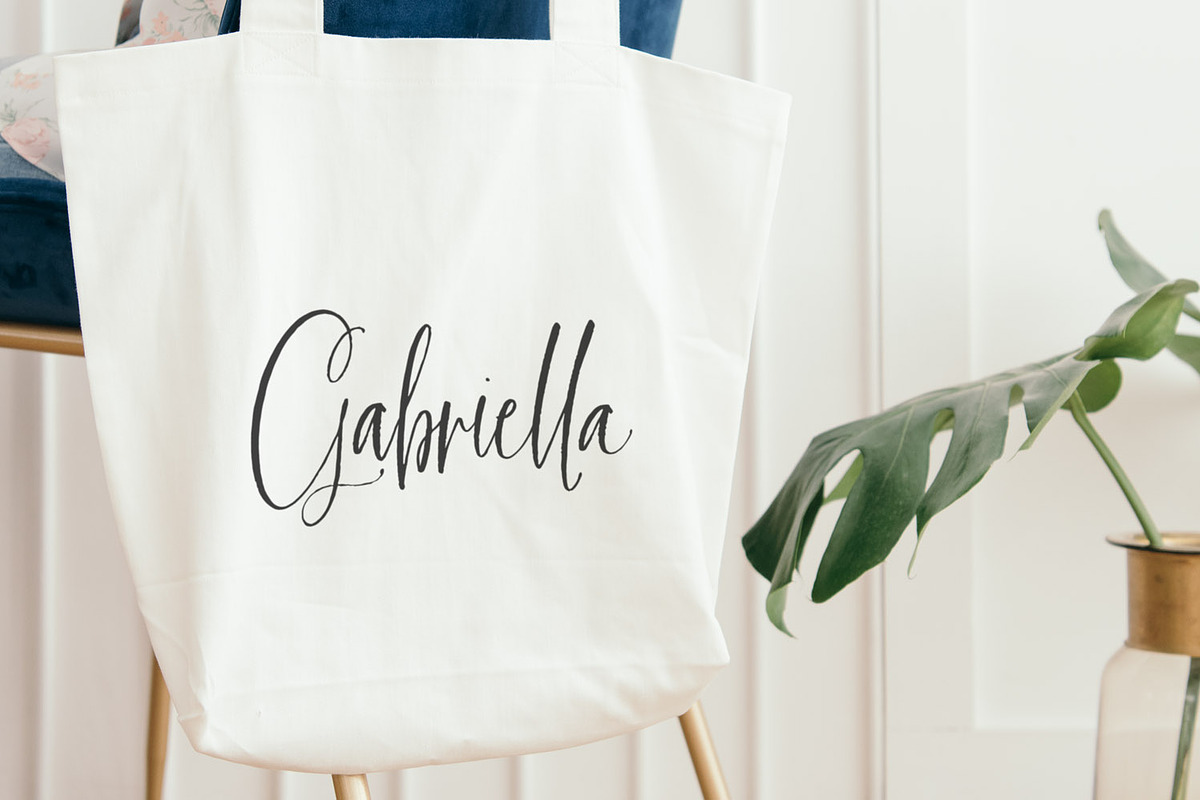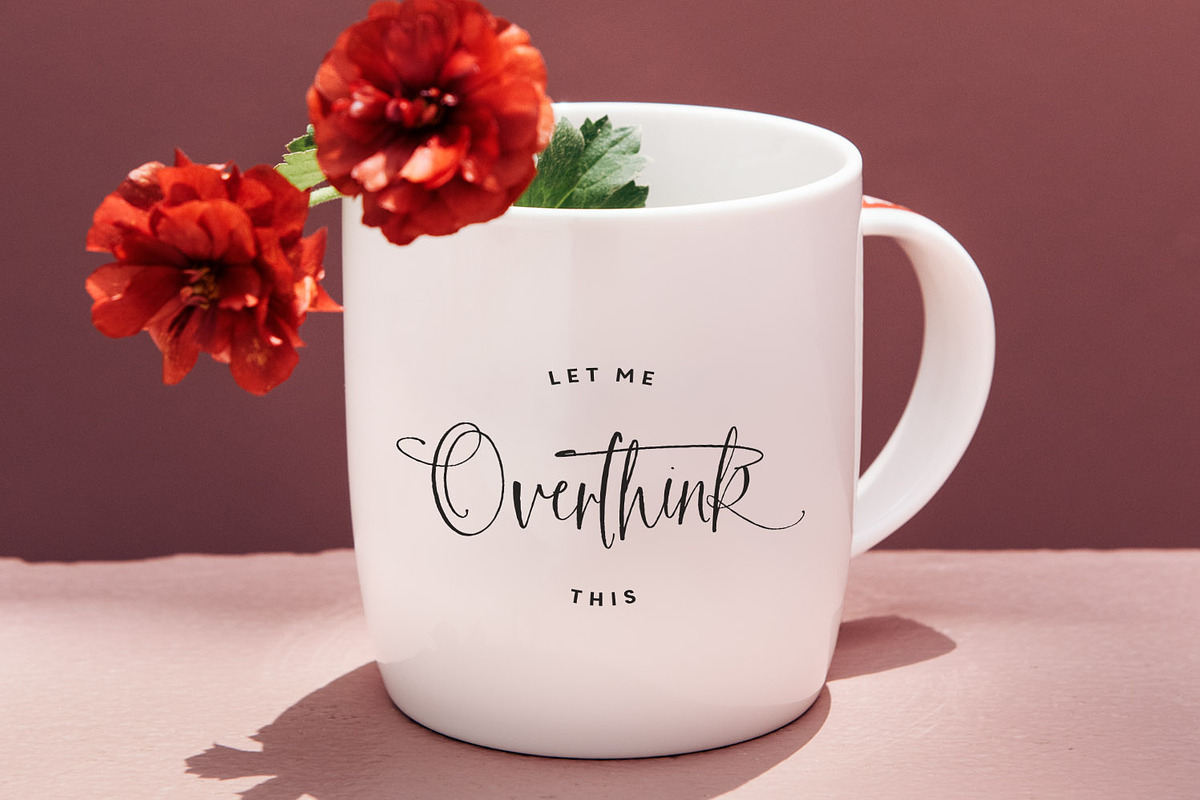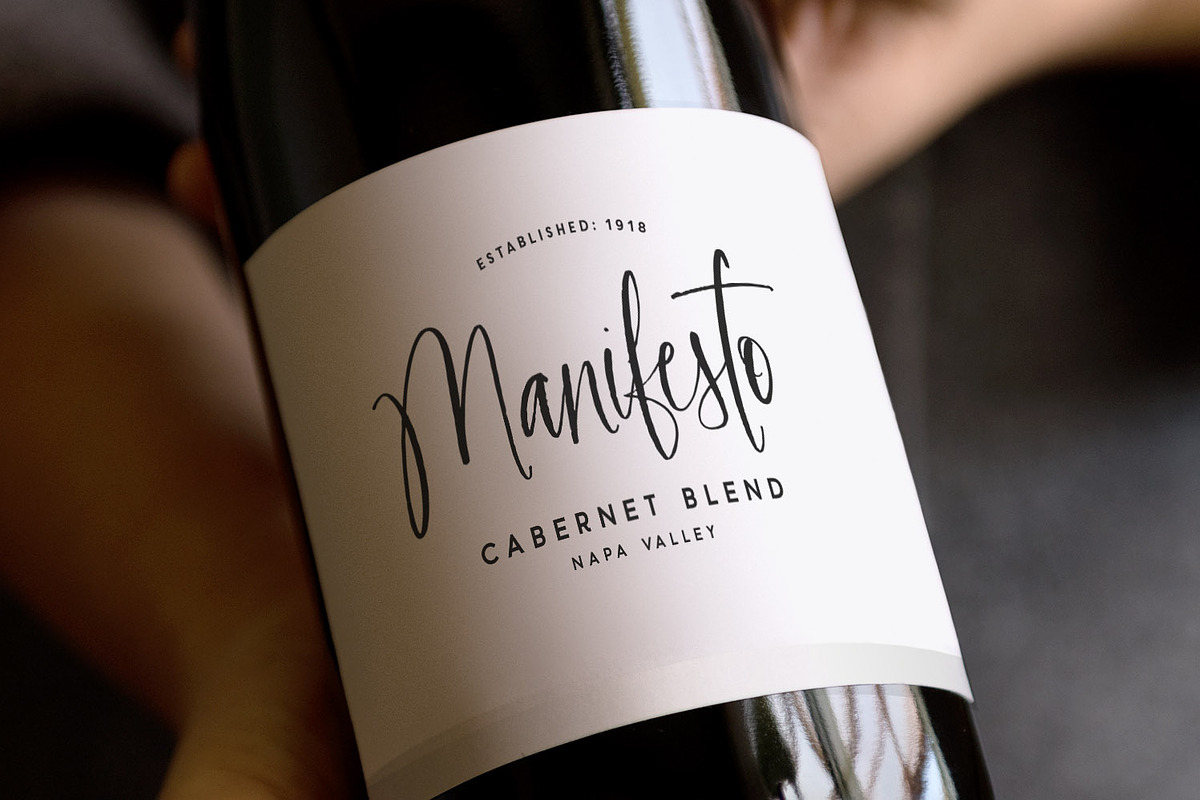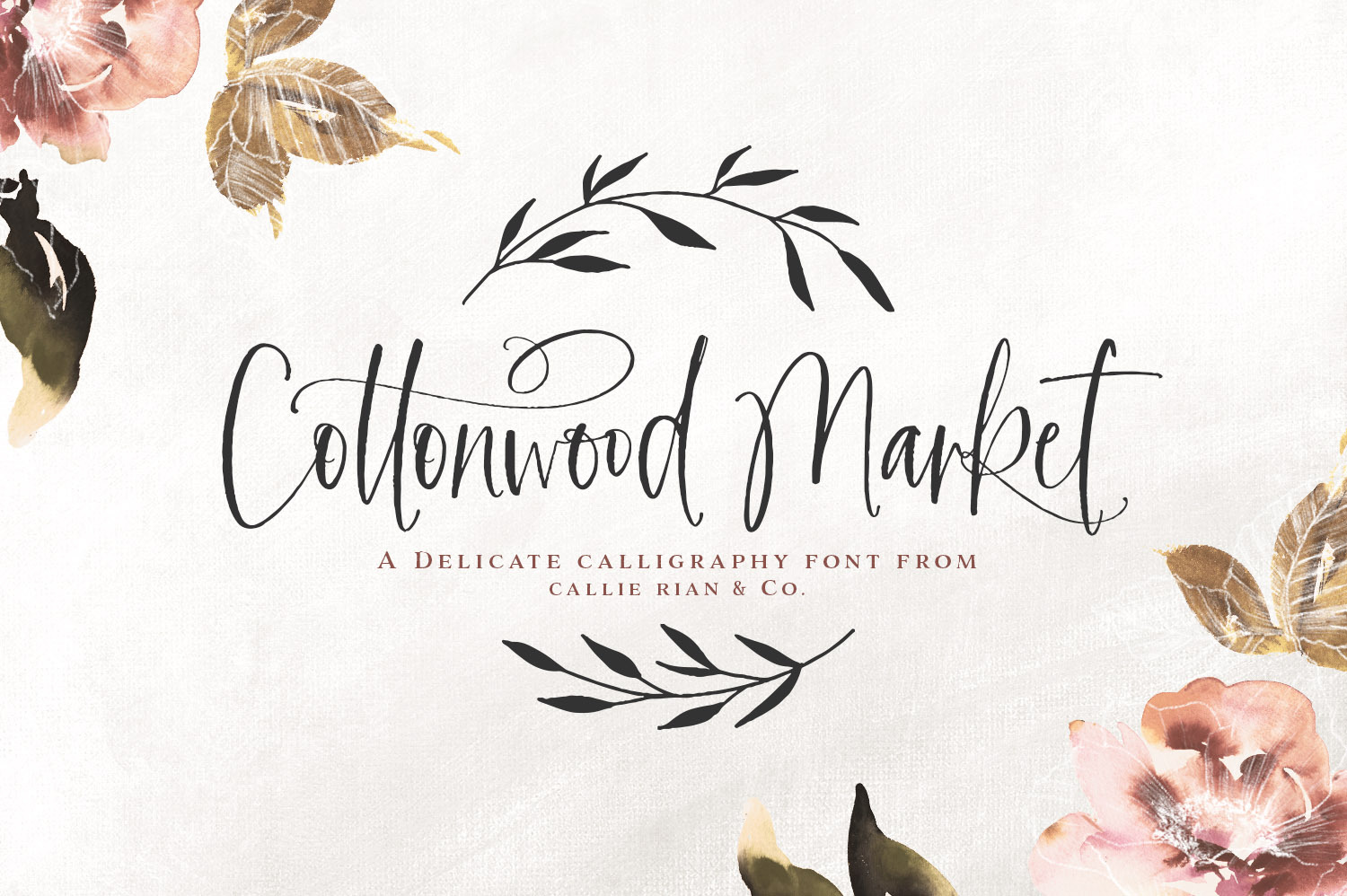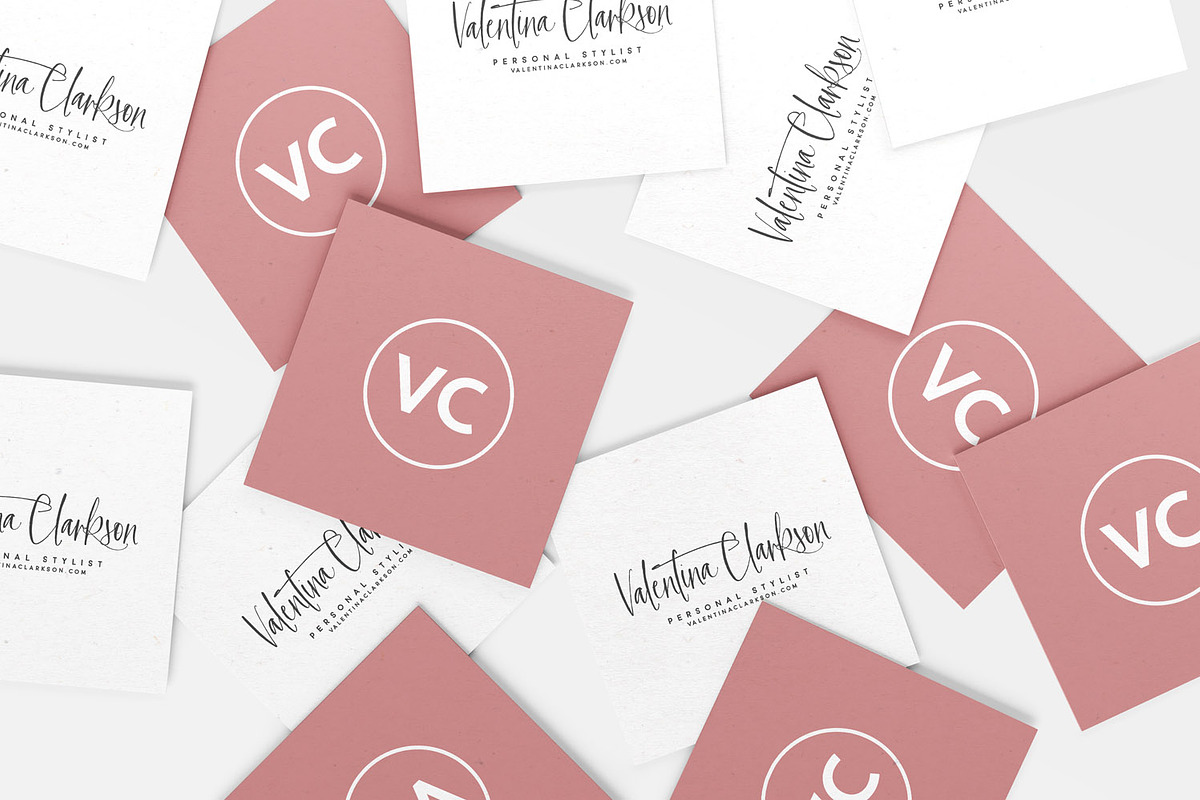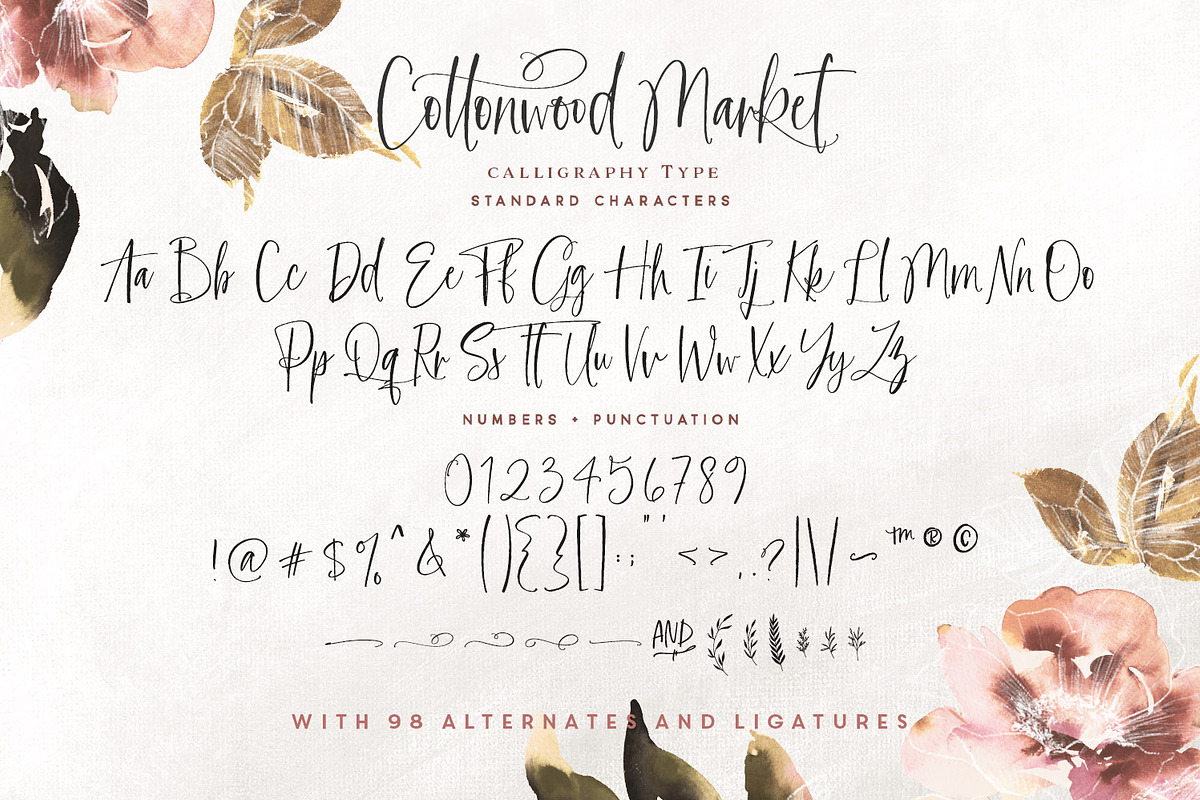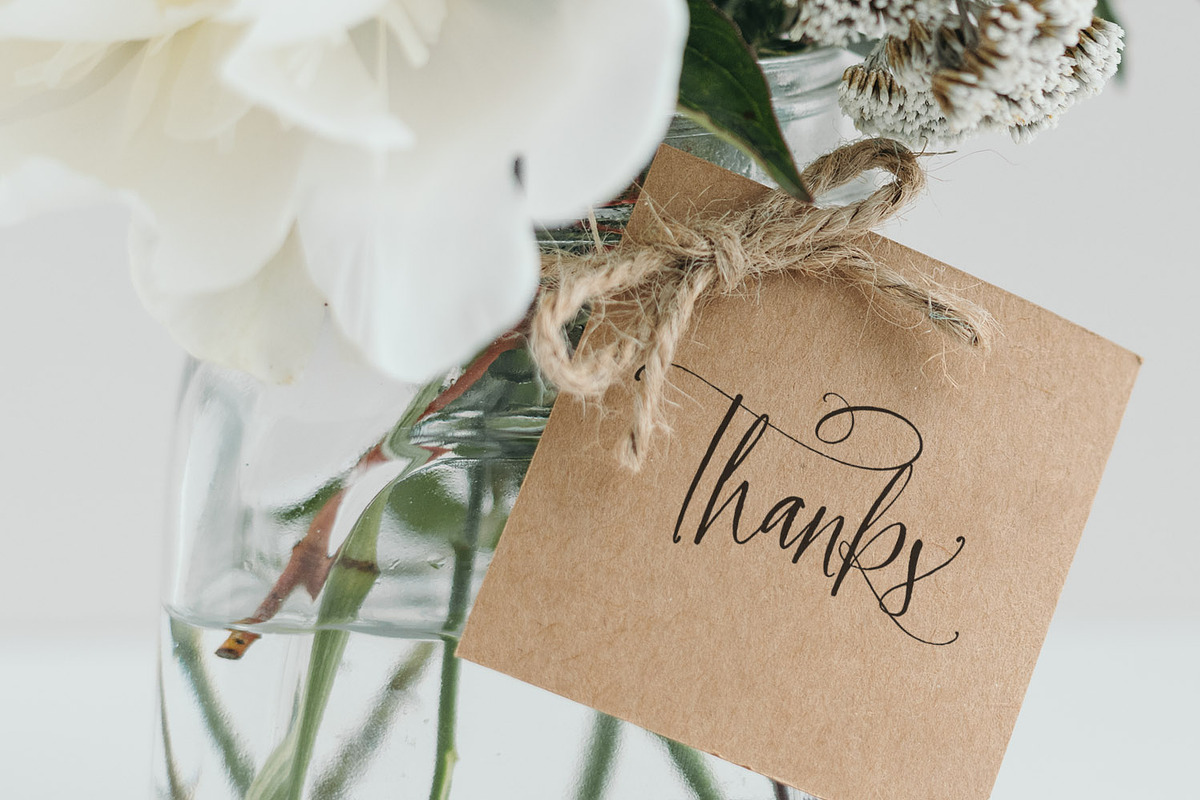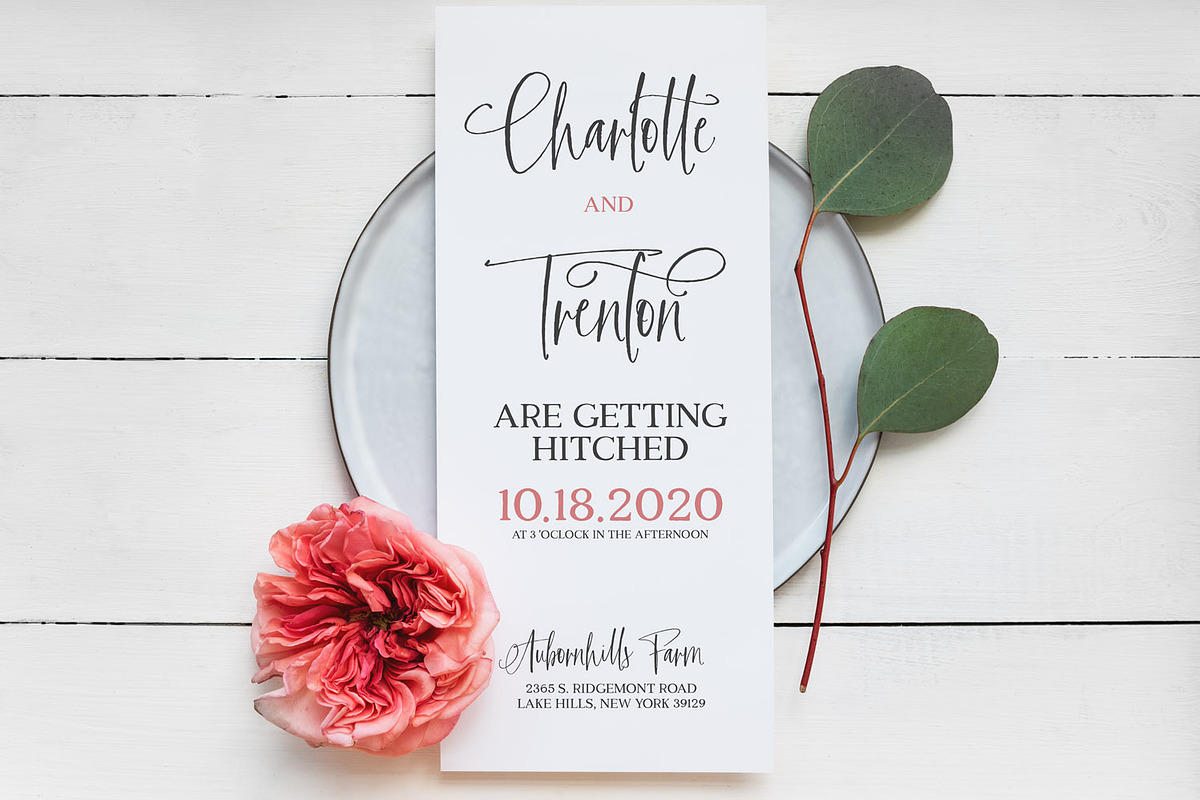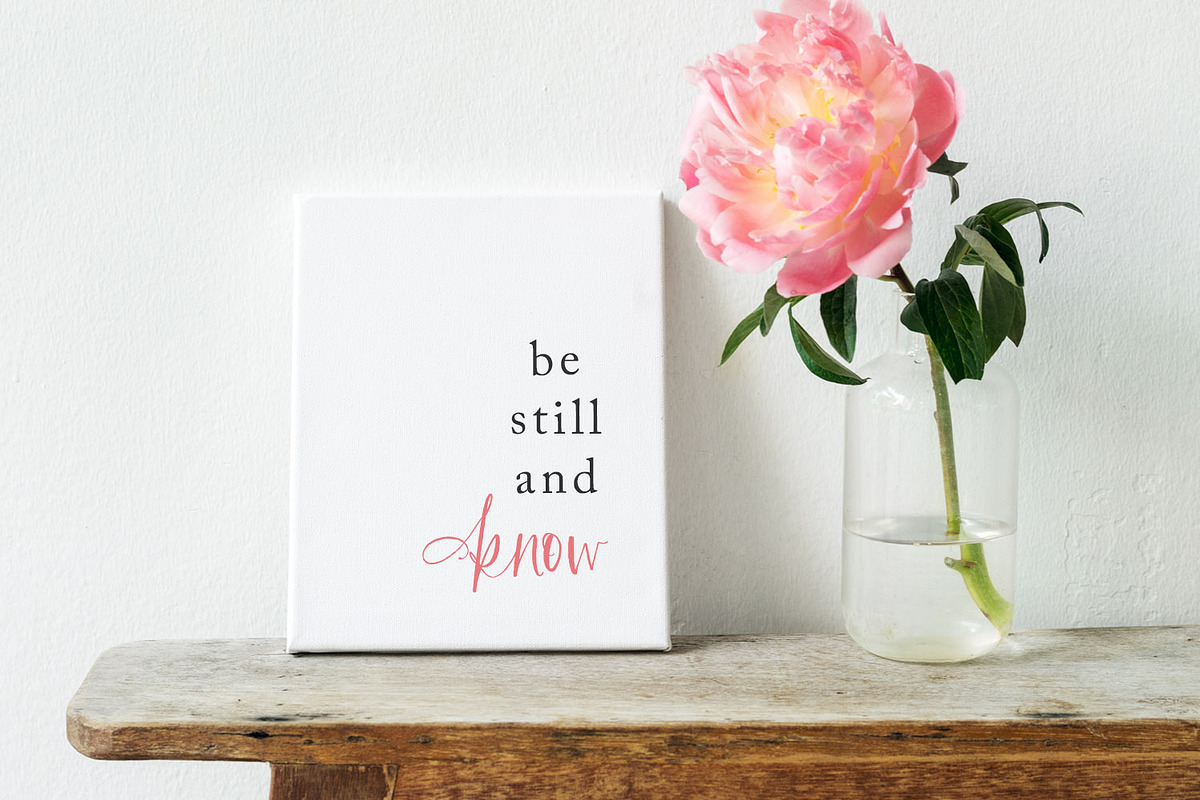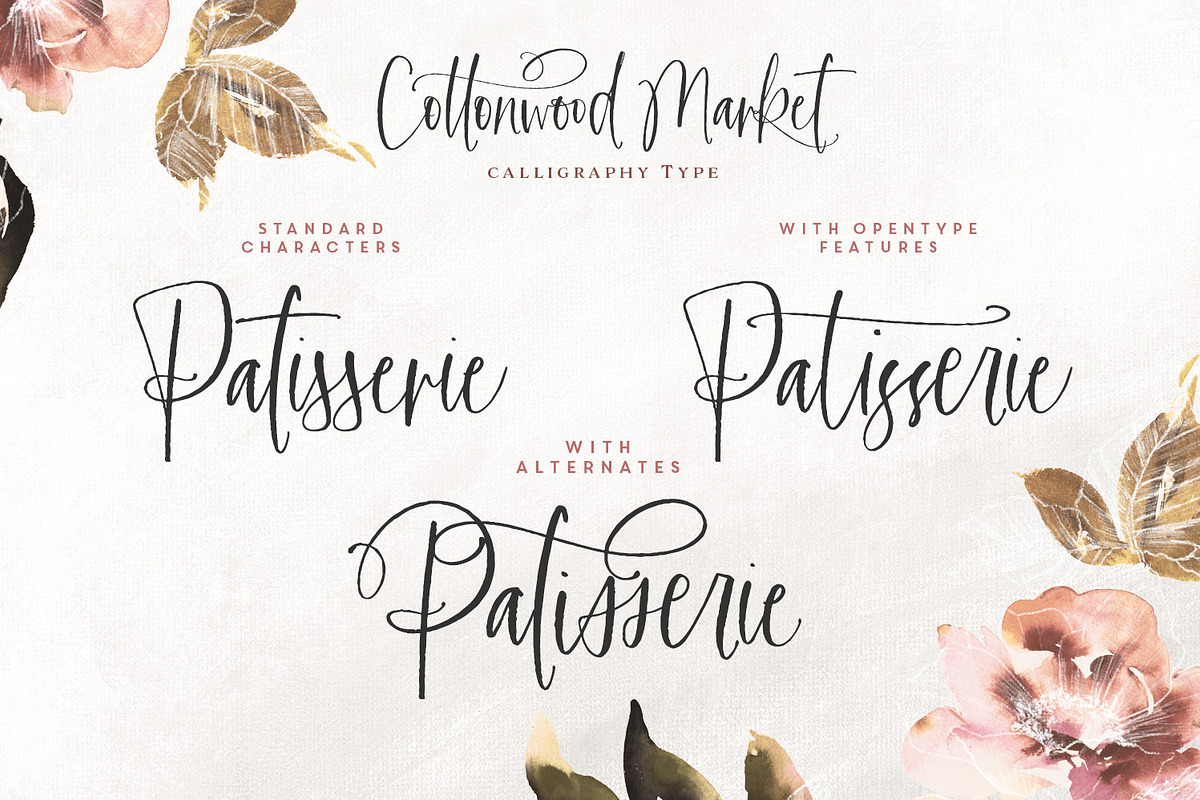
Cottonwood Market Typeface
Introducing Cottonwood Market - a sweet, upright calligraphy font with loads of decorative alternates and a charming signature feel. This lovely little calligraphy font is packed with alternates, ligatures, and an authentically inked texture. It’s romantic and delicate with thin lines and signature glyphs. Check out that swanky ‘k!’ 😉
Cottonwood Market has plenty of personality for branding, bridal, merchandise, signage, signatures, and more! With over 90 ligatures and alternates to play with, you can have some serious fun with this font. And I’ve even included an italic version, plus 6 hand drawn floral elements (within the font file). 💕